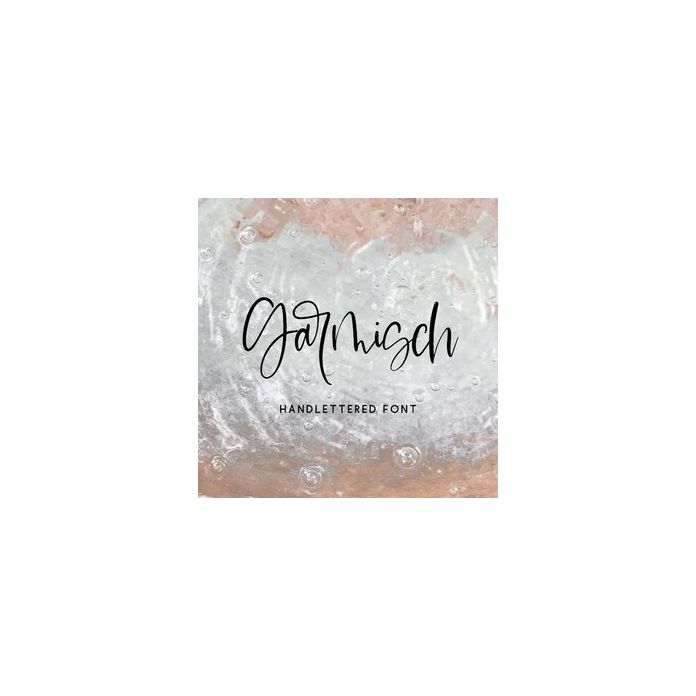
Garmisch Script Font
Say hello to Garmisch Script, a modern calligraphy style font featuring thin clean lines and casually handlettered characters. Garmisch Script is best for: - logos + branding - website design + website accents - think travel blogs, fashion blogs, & more - clean print design, like magazines + flyers - header elements that need handwritten touch - quote graphics for social media Garmisch includes: - full upper + lowercase characters - numbers + punctuation - Western European Language Support - 5 alternate characters - r, i, n, p, t - 9 ligatures - ar, cr, er, ft, in, ir, or, tt, ur - PUA-encoding